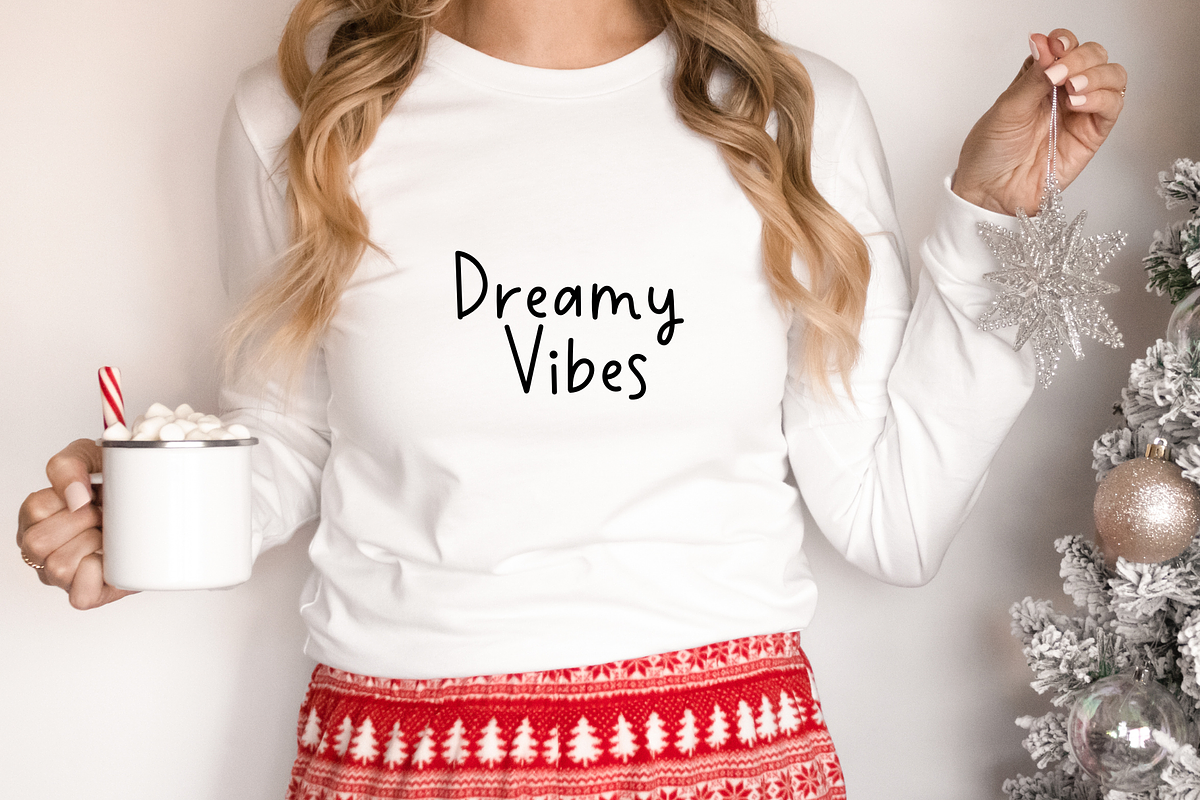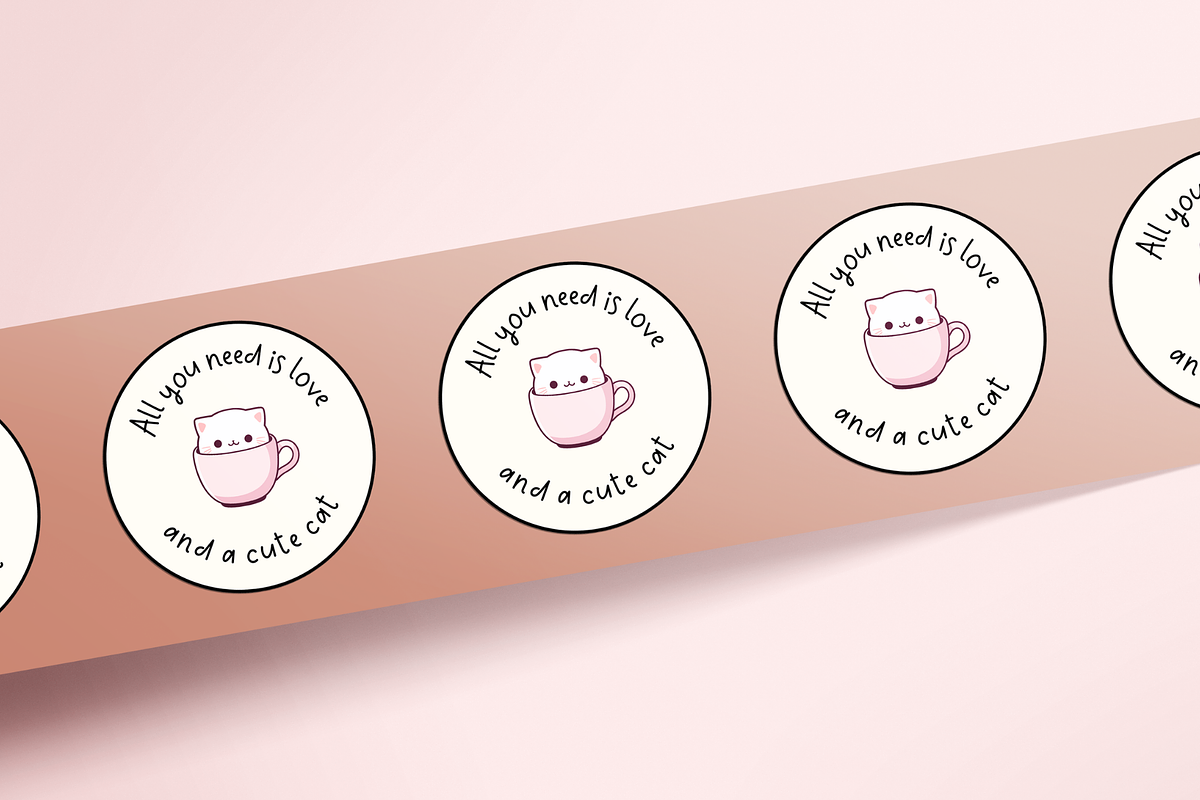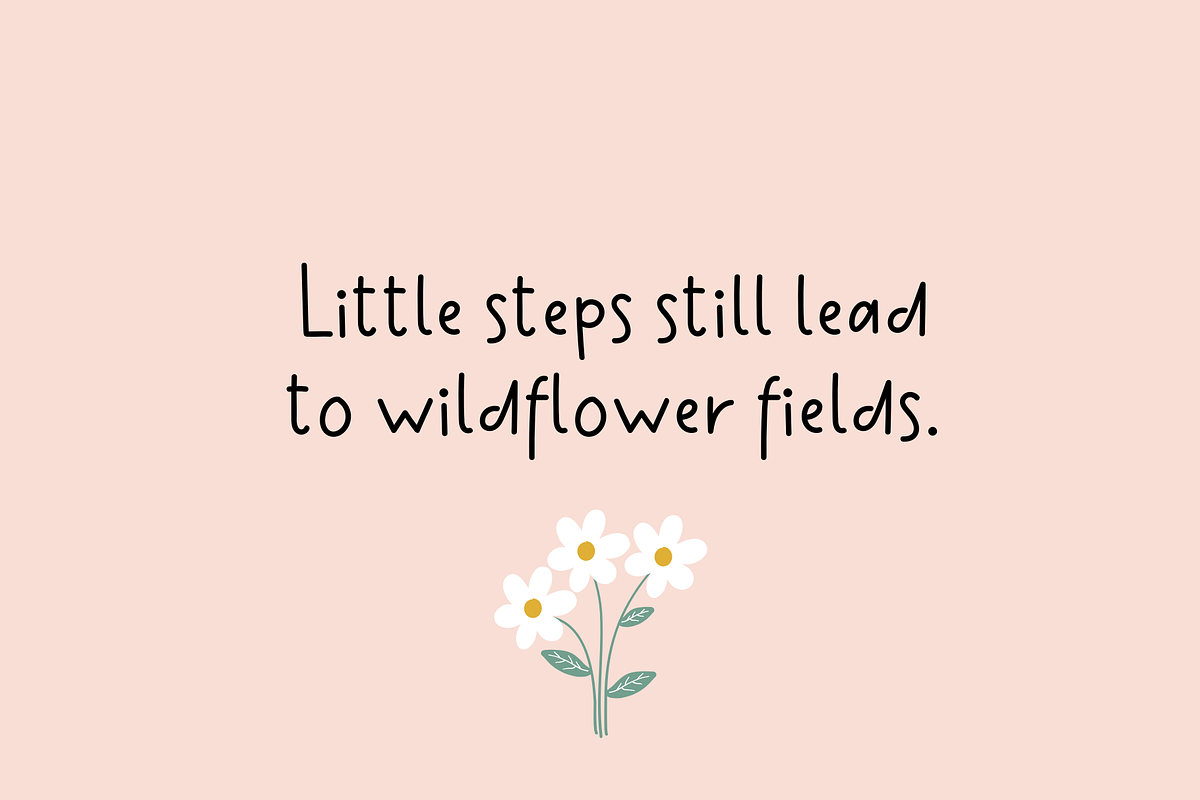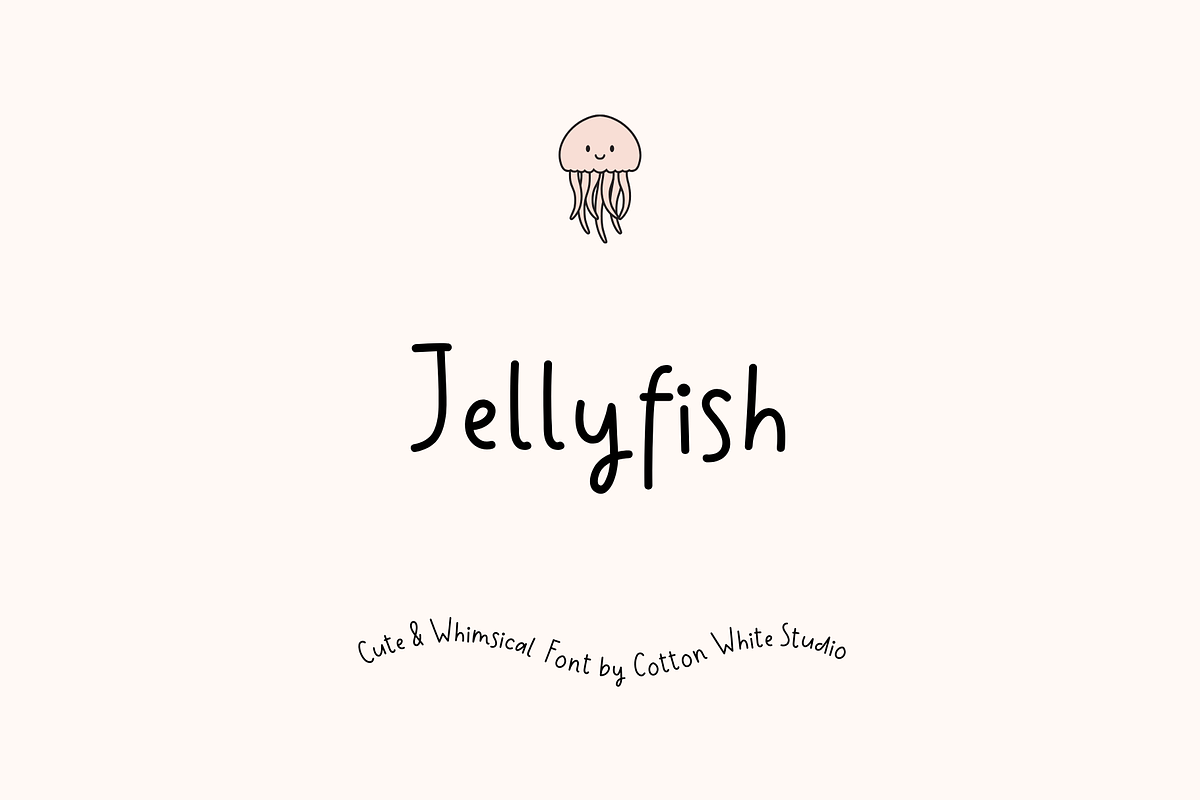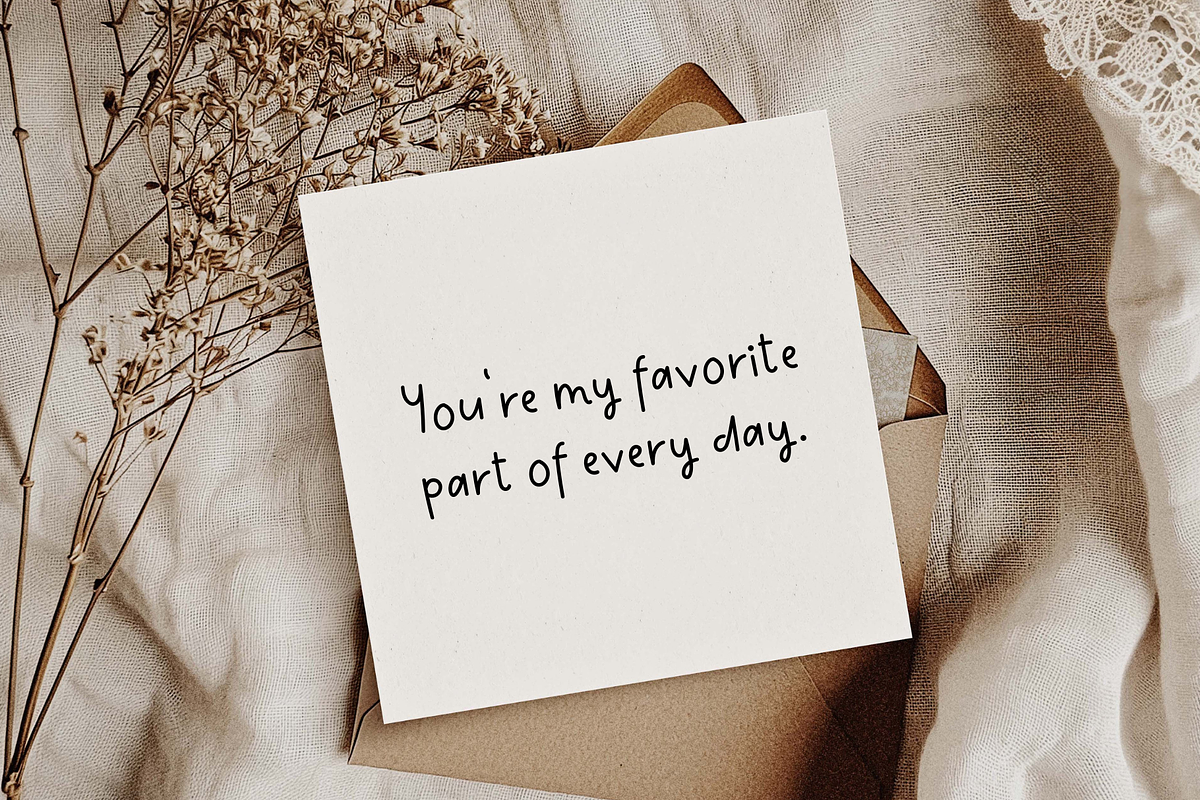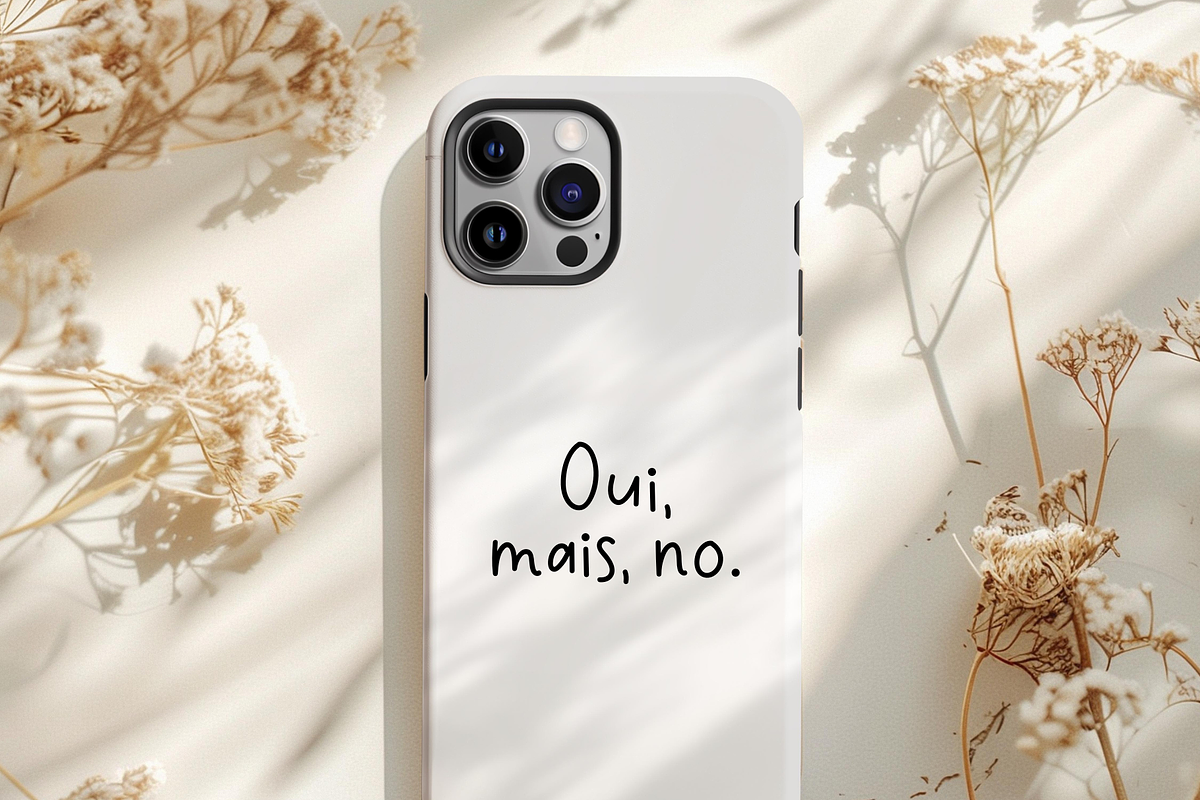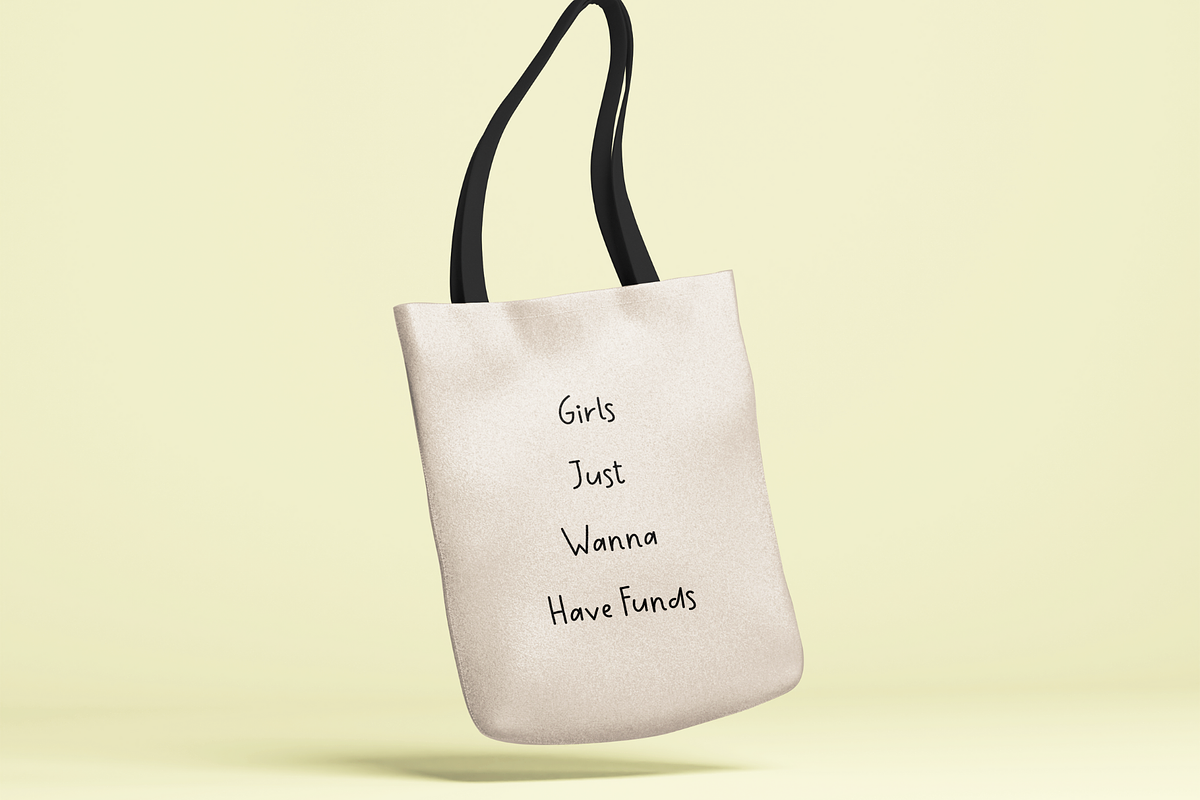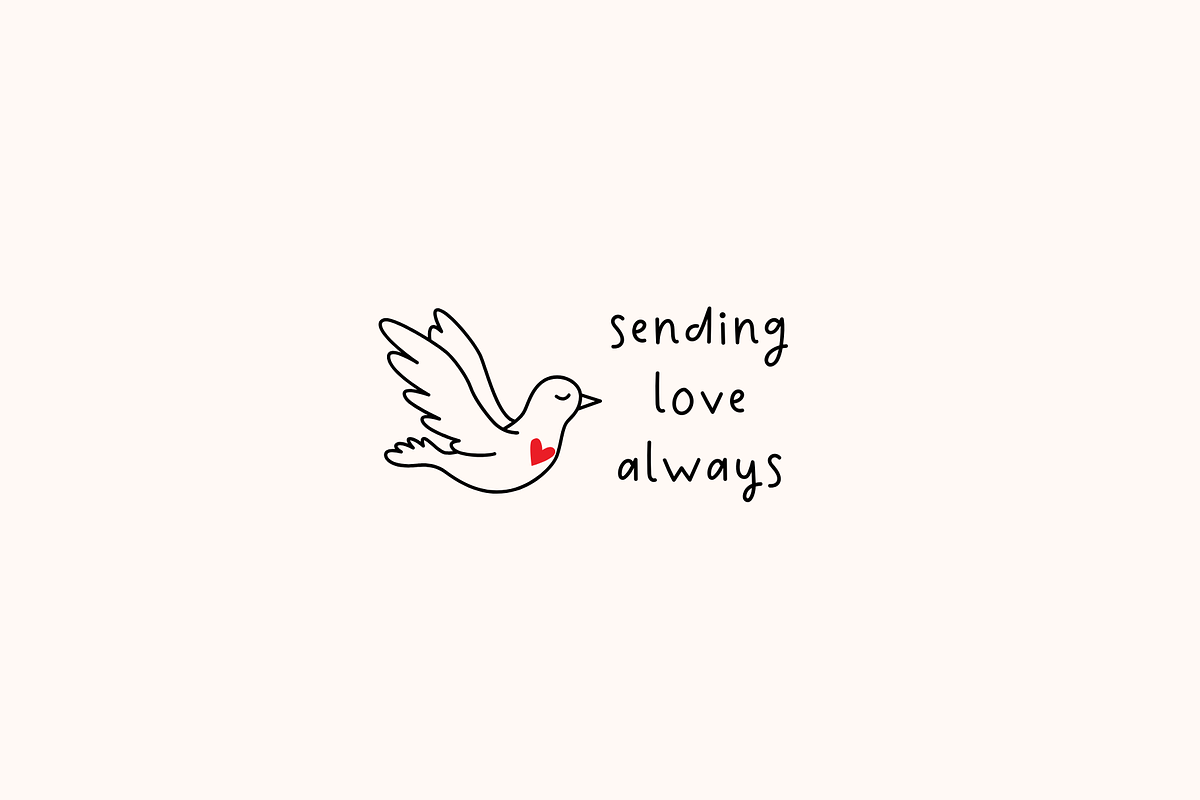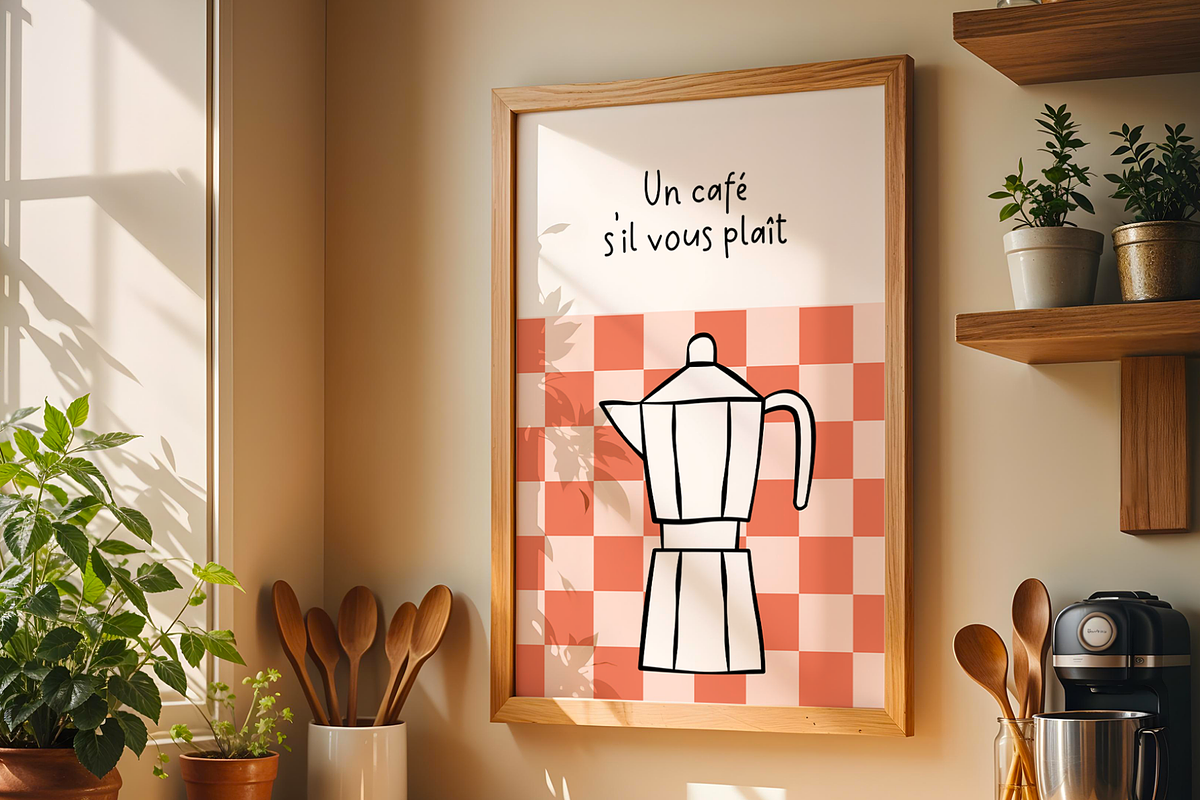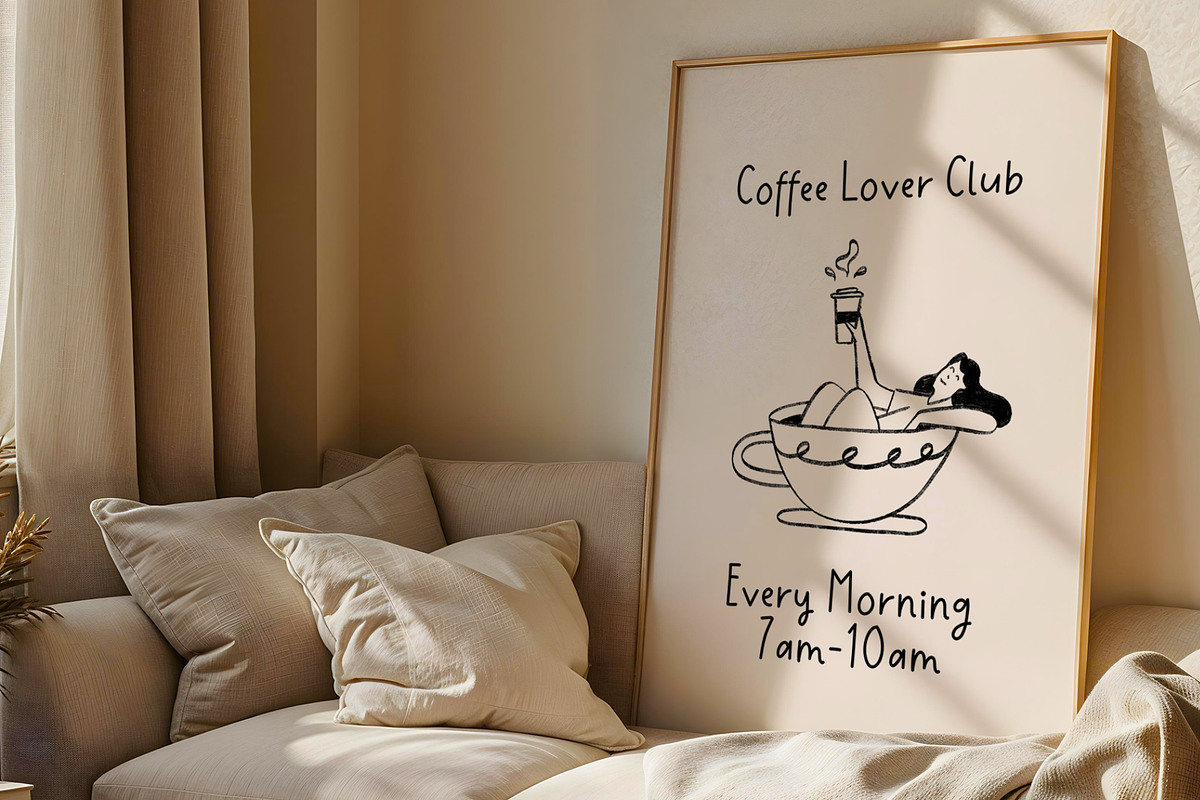
Jellyfish Cute Font
This font is perfect for adding a handwritten touch to your digital planner, journal, invitations, notes, or any creative project that calls for a bit of charm. Use it effortlessly in Cricut, Adobe Illustrator, Photoshop, Canva Pro, Silhouette, Procreate, Affinity, Notability, GoodNotes, and more!